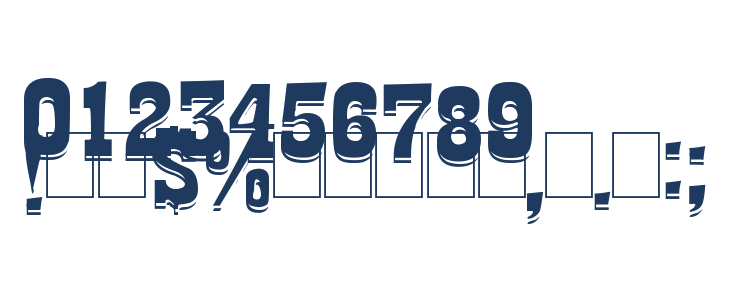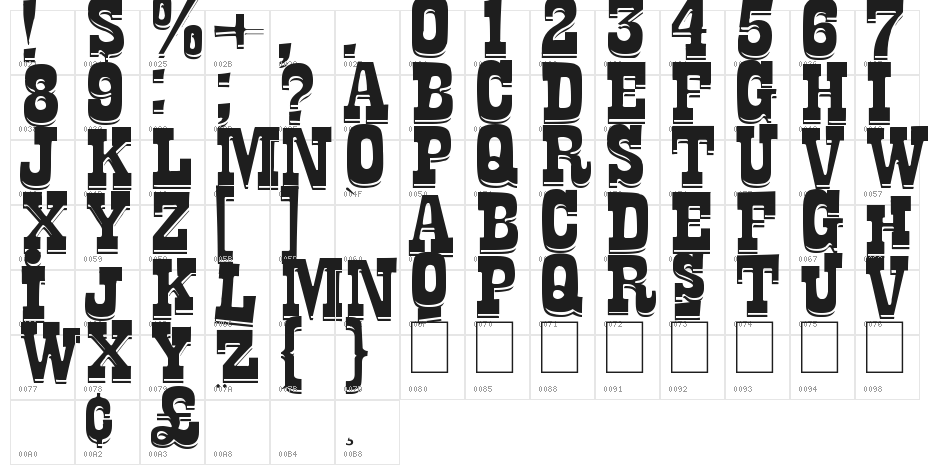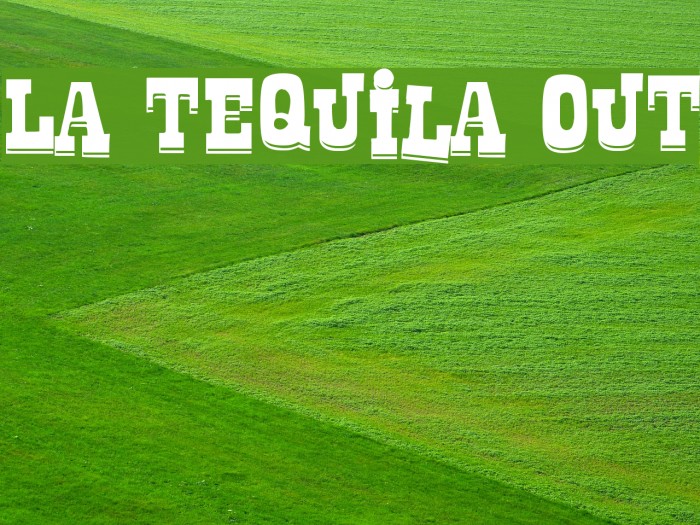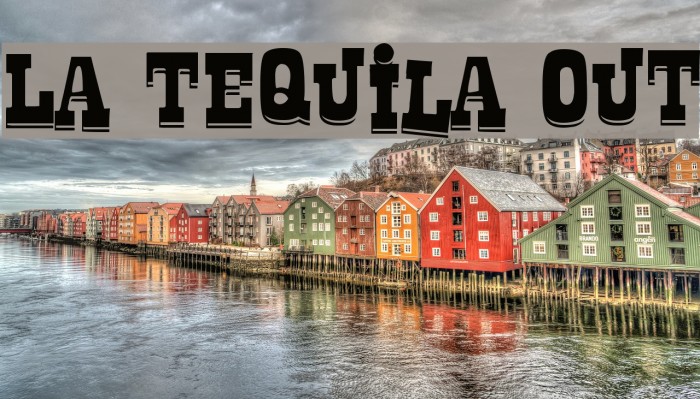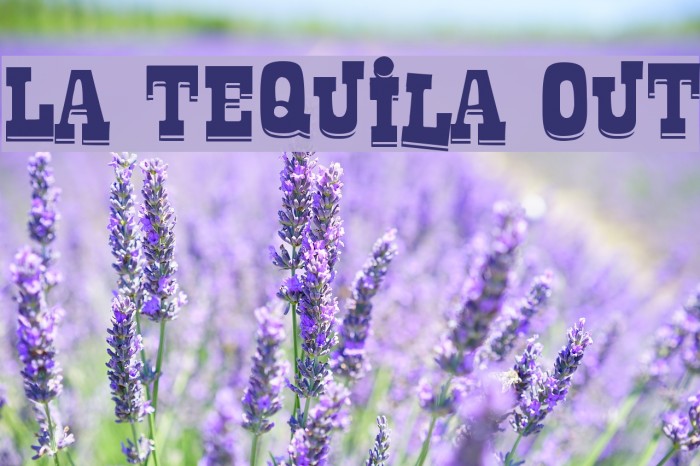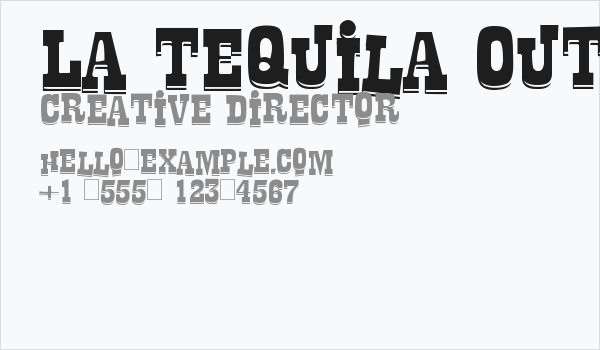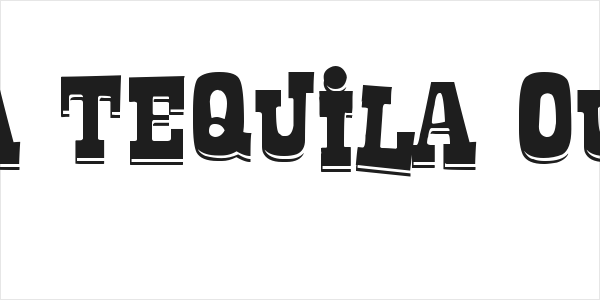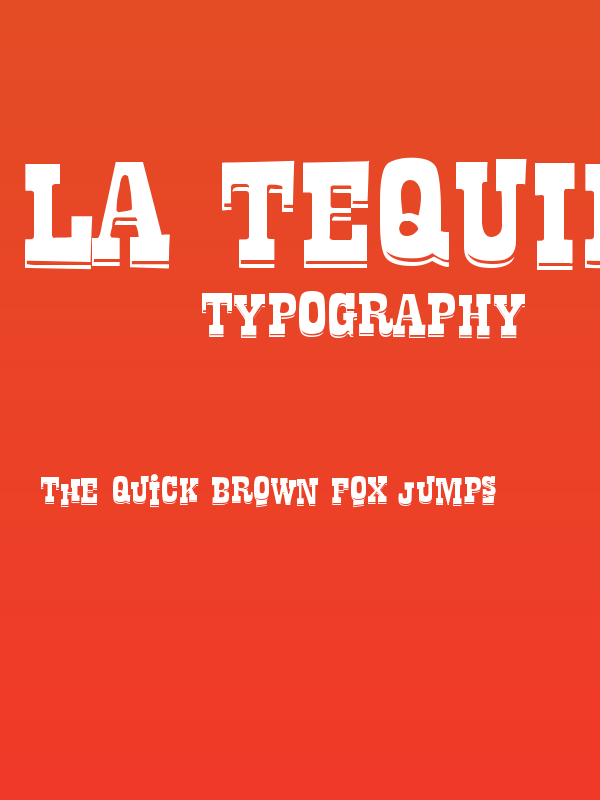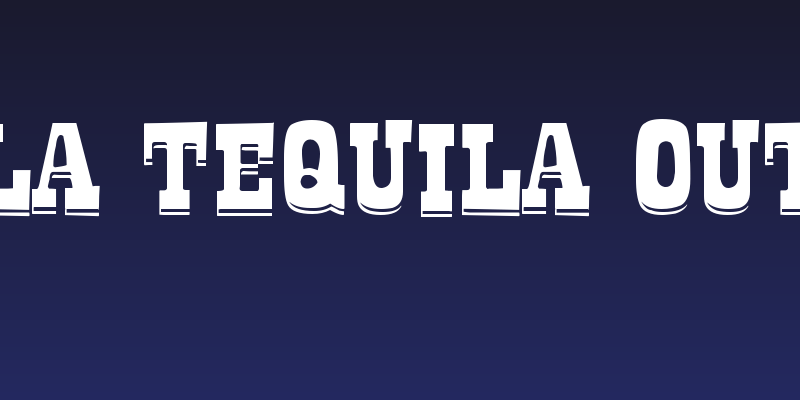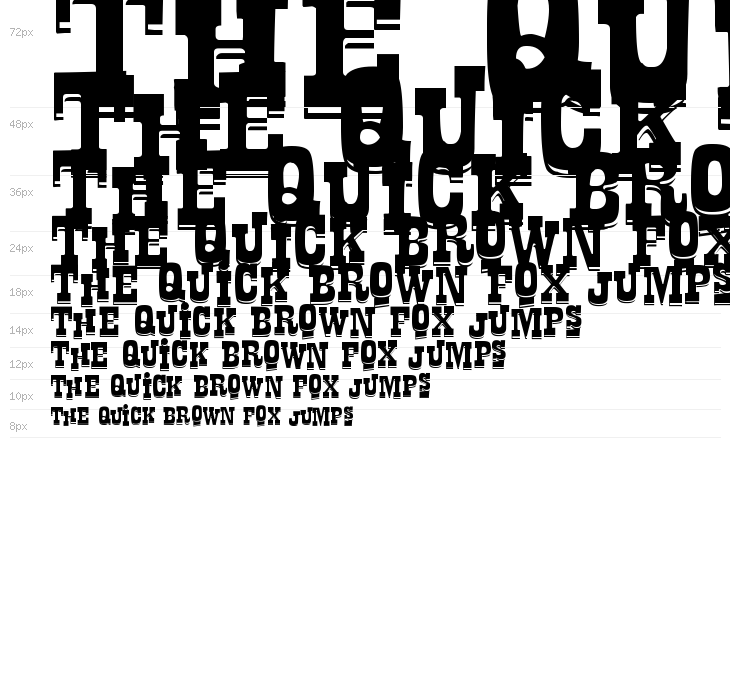
La Tequila Out Font
La Tequila Out Description
This font features a bold, decorative style with a distinct shadow effect that gives it a three-dimensional appearance. The uppercase letters are robust and commanding, while the lowercase letters maintain a consistent weight and style. The numerals are equally bold, ensuring they stand out in any design. The special characters, including punctuation marks and symbols, are designed to match the overall aesthetic, making them suitable for a variety of creative projects. The font's unique style is reminiscent of vintage signage, adding a touch of nostalgia and flair to any text.
| Proposed Projects | Ideal for posters, signage, branding, and any project requiring a bold, eye-catching typeface. |